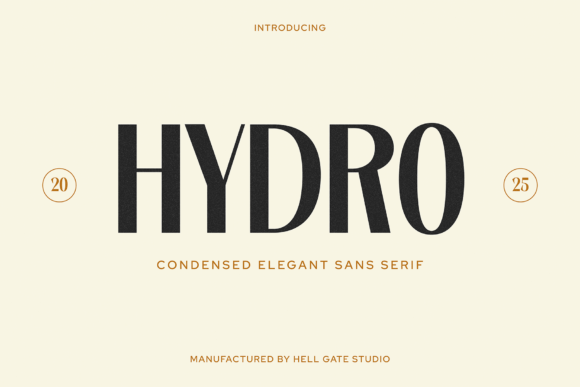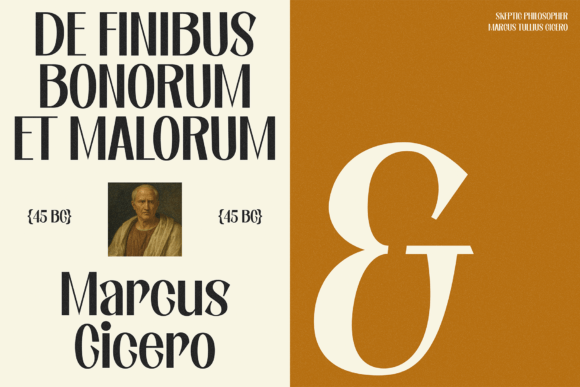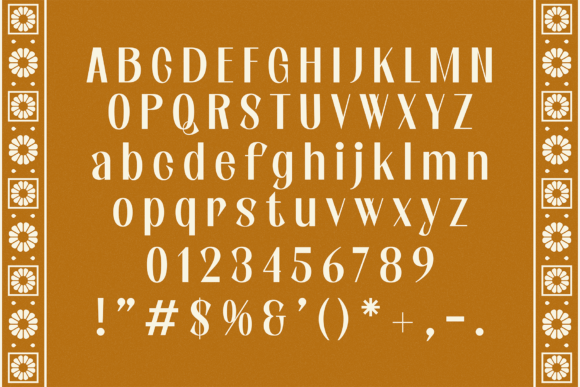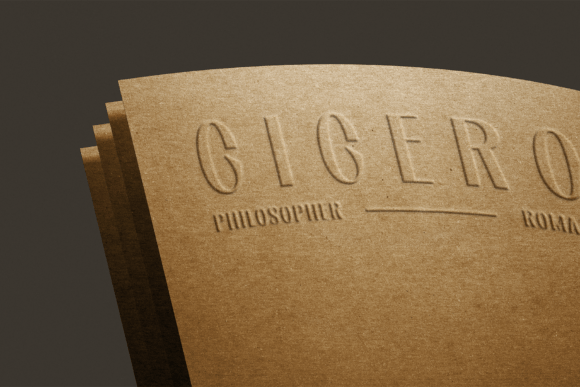
There’s nothing quite like the thrill of bringing a design concept to life. You’ve spent hours pouring over inspiration boards, tweaking colors, and testing layouts. But when it comes down to the nitty-gritty of typography, the right font can make all the difference.
That’s where the Hydro Font comes in – a sophisticated, condensed sans serif masterpiece designed to elevate your designs to new heights. This sleek, elegant font is tailor-made to complement a refined aesthetic, making it the perfect choice for designers looking to add a touch of sophistication to their work. With its fine-tuning capabilities and effortless editing, the Hydro Font is a valuable addition to any designer’s toolkit, allowing for a high-quality rendition that truly stands out.
Key Features of Hydro Font
- Font Family: Hydro Font is a sans-serif font family with 6 weights (Thin, Light, Regular, Medium, Bold, Black) and italics.
- Unique Characteristics: Hydro Font features a unique blend of modern and futuristic elements, with a focus on clean lines, geometric shapes, and a high x-height.
Hydro Font Review
Overall, I think Hydro Font is a solid choice for those looking for a modern sans-serif font. ✨ Its clean lines and smooth curves give it a really fresh feel that works well in digital interfaces.
Here are some specific things that I think work well:
- ✨ **Legibility**: Hydro Font is highly legible, making it perfect for body text where readability is key.
- ✨ **Customizability**: The font offers a range of weights and styles, allowing you to customize its look to fit your design needs.
- ✨ **Scalability**: Hydro Font looks great at various sizes, from tiny buttons to large headlines.
- ⚠️ **Lack of personality**: While Hydro Font is clean and modern, it may not be the best choice if you’re looking for a font with a lot of personality or flair.
- ⚠️ **Limited expressive power**: The font’s simplicity can make it feel a bit flat or boring in certain contexts.
Overall, I think Hydro Font is a great choice for designers who value simplicity and modernity. While it may not be the most exciting font out there, it’s reliable and gets the job done.
Hydro Font is ideal for:
- Creating modern and sleek designs.
- Adding a touch of elegance to your typography.
- Designing logos, branding materials, and marketing materials.
Remember to experiment with different font sizes, colors, and styles to get the most out of Hydro Font.